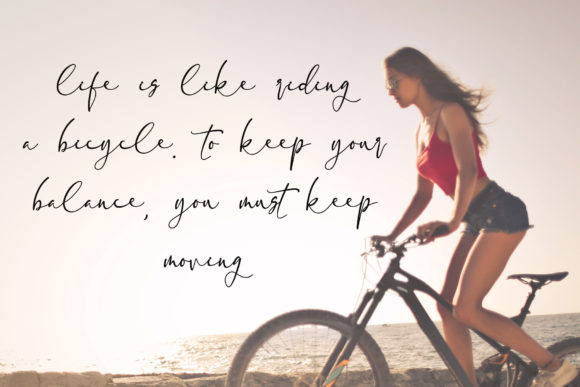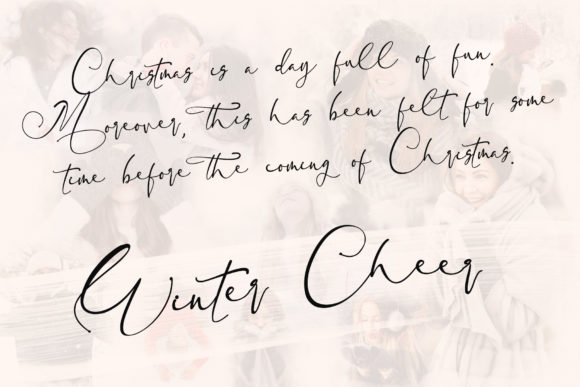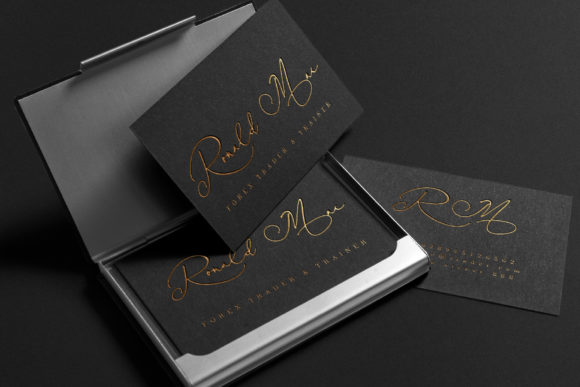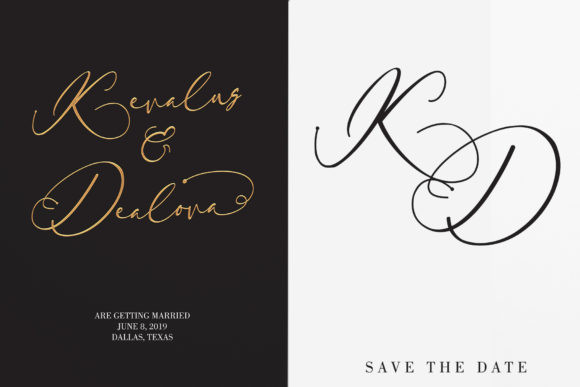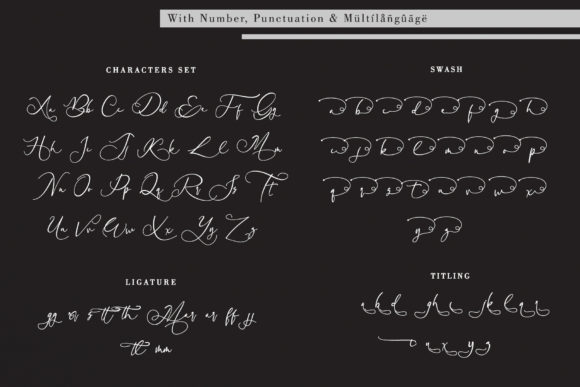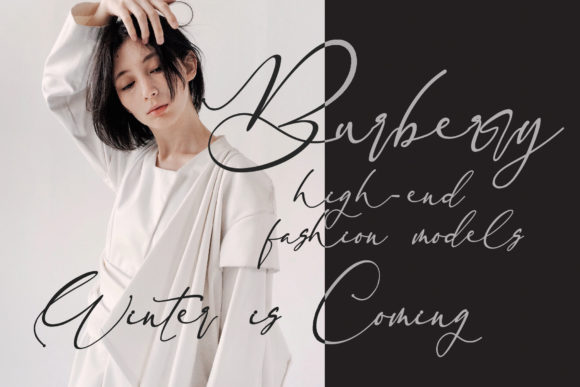
Introduction to Mariagata Font
Have you ever stumbled upon a font that instantly sparks creativity and makes you envision a stunning design project? For me, that moment happened when I discovered the charming Mariagata Font. Its unique lettering and sweet personality captured my heart and inspired me to create something truly special.
As designers, we’re always on the lookout for high-quality design resources that can elevate our creative projects. And that’s exactly what Mariagata Font offers – a free download that’s perfect for adding a personal touch to your designs. With its transparent background, this font is versatile and can be used in a variety of contexts, from wedding invitations to blog headers.
Whether you’re a seasoned designer or just starting out, Mariagata Font is a valuable addition to your design arsenal. Its unique charm and high-quality design make it a must-have for any creative project, and its free download means you can start using it right away.
Key Features of Mariagata Font
- High-quality design: Mariagata Font is a beautiful and elegant font perfect for creative projects, offering a unique and sophisticated touch.
- Unique characteristics: Mariagata Font features a unique blend of modern and traditional design elements, making it an excellent choice for designers seeking a distinctive look for their creative projects.
- Design versatility: This font is suitable for a wide range of design applications, including book titles, logos, headings, and other creative projects that require a high-quality, elegant font.
Honest Review: Mariagata Font
One of the things that works well with the Mariagata Font is its high quality. The font is crisp and clear, making it perfect for any creative project that requires a professional touch. ✨ I particularly like the fact that it comes with a transparent background, which makes it easy to customize and integrate into any design.
The font also has a unique and elegant design, which sets it apart from other free fonts available online. The Mariagata Font is perfect for designers who want to add a touch of sophistication to their designs without breaking the bank.
- The font may not be suitable for bold or dramatic designs, as it’s more elegant and subtle.
- The font family is limited, which may not be ideal for designers who need a wide range of font styles.
Overall, I’m impressed with the Mariagata Font, and I would highly recommend it to designers who are looking for a high-quality, free font for their creative projects. ⚠️ Just keep in mind the limitations mentioned above, and you’ll be good to go!
The Mariagata Font is a high-quality, free design resource ideal for creative projects. Its unique style and transparent background make it a versatile design element.
For best results, use Mariagata Font in conjunction with other design elements that complement its style. Experiment with different font sizes, colors, and arrangements to create visually appealing designs.
Common Use Cases for Mariagata Font
Mariagata Font is suitable for a wide range of creative projects, including graphics, logos, text overlays, and backgrounds. It’s particularly useful for designs that require a unique, eye-catching style.